Our good old paperback books have been replaced by their digitalized versions that are PDFs, eBooks, EPUBs and Kindle books. A significant shift has been observed, people across the globe have been opting for eBooks instead of actual books. One of the reasons could be eBooks being easier to store, are cost-effective, and don’t add to your baggage while on the go. These files are either stored on the cloud or on your phone or laptop as a small file. With that change, most browsers have now released updates that enables the users to read any eBook format on the browser itself, without the need of installing dedicated software for them.
Keeping this in mind, it becomes important to know how to change the fonts of a web browser especially the most popular one among all i.e. Google Chrome. A change in the font will ensure that we are able to enjoy our read along with, making it soothing and pleasant for eyes as well Reading short content while surfing or shopping on an E-Commerce website is different from gazing into the screen to read your favorite book. Therefore, you need to customize font as per your preferences.
Steps to Change Google Chrome’s Default Font.
Google apps are very simple to use and any changes within the app do not require much effort. To access the fonts section in Google Chrome, follow these steps:
Step 1. Open Chrome Browser. Click on three dots on the top right corner.
Step 2. From the menu list, choose Settings. A new tab will open in your browser.
Step 3. In the Settings tab, locate and select Appearance from the list of options on the left side.
Step 4. From the new option available in the center of the tab, click Customize Fonts.
Step 5. Here you can customize the Font Size and the Font Type.
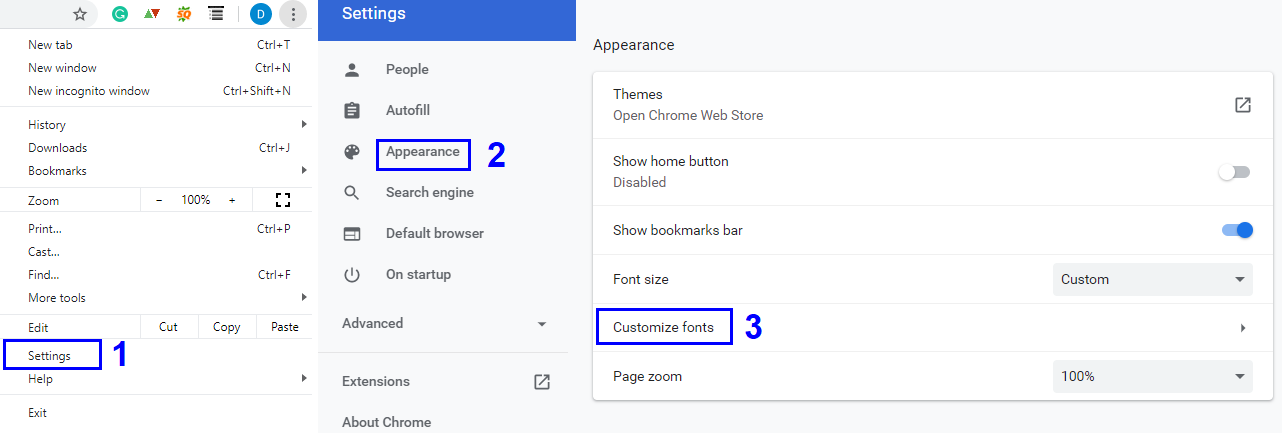
Alternatively, you can type chrome://settings/fonts in the address bar of a new tab in your Google Chrome browser.
Font Size.
There are two options available while altering the size of the Font.
Font Size. This option will set the page font of Chrome, and all websites that display on Chrome. It can go as low as 9px and as high as 72px
Minimum Font Size. This is generally set as zero px by default. Setting this to value means that the font will not go below the set pixels.
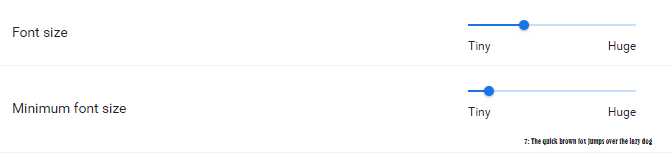
Font Type.
There are four options where you can alter the font type.
- Standard: This option determines the primary style of the font in which the content of a web site will be presented on your browser. The default font set on a Windows computer is Times New Roman.
- Serif: A serif is a font style where a stroke or a small line is added to an alphabet to enhance it. This typography style is generally found in Font types such as Courier, Times Roman (Default) and Palatino.
- Sans-serif: Translated from French, ‘Sans’ means ‘without’. The font types without Serif or strokes are included in San-Serif. The most popular among them is Arial (default), and there are others like Helvetica and Geneva. This font style conveys minimalism and simplicity.
- Fixed width: Some websites have fonts in which the alphabets are placed close together. If you have trouble reading any such websites, you can change the space between the characters in the text with this option. The default Font typeset on Windows 10 is Consolas.
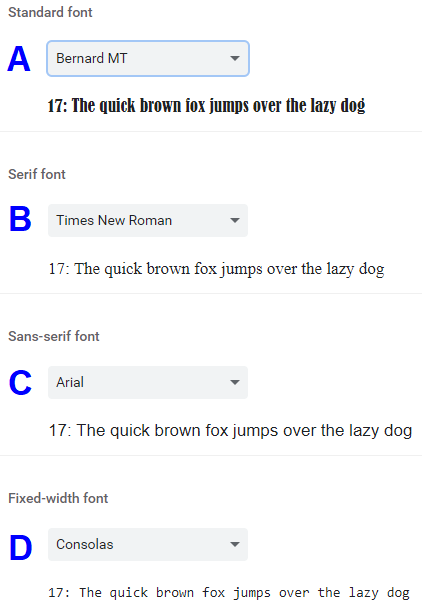
Which Fonts Can You Replace Google Chrome Default Font With?
There are many font options available to choose from:
Font Arial.
One of the most popularly used fonts is Arial. Until 2007 it was used as a default font in Microsoft Office applications. It was designed almost identical to Helvetica which was a licensed font.
Font Baskerville
Baskerville offers symmetrical and elegant characters that provide a calming effect. It is one of the oldest known styles and the text is rounded in shape.
Font Calibri.
Font Calibri is currently, the default font in Microsoft’s Word, Excel, and PowerPoint applications. Designed by De Groot in 2002, it offers warm and soft characters specially designed for LCD monitors.
Font Bodoni
Originally used in Posters and Newsletters, Bodoni is an elegant font that can be difficult to read in smaller sizes. The default size set is 9px or higher.
Is It Necessary To Change Google Chrome Default Font?
Changing the Google Chrome default font is not only important for readers who prefer eBooks, but also for people who surf the internet daily for personal or professional work, and most importantly for those who face visual issues. All browsers use default settings to optimize a website in such a way that more information is displayed on the page, which is a part of Marketing. This can lead to the reduction of spaces between the words and minimizing the fonts to an extent, where it creates a strain on our eyes.
However, with knowledge on how to deal with this uprising issue, we can now change the Google Chrome default font, and replace it with a font of our liking and adjust the size as well. Do try out the various options and share your experience with your browsing experience after altering the default fonts in the comments section. Also, If you are keen to get more updates about such issues which are not that big but important nonetheless, you can always subscribe to our blogs and receive the latest tech news and issue resolutions.